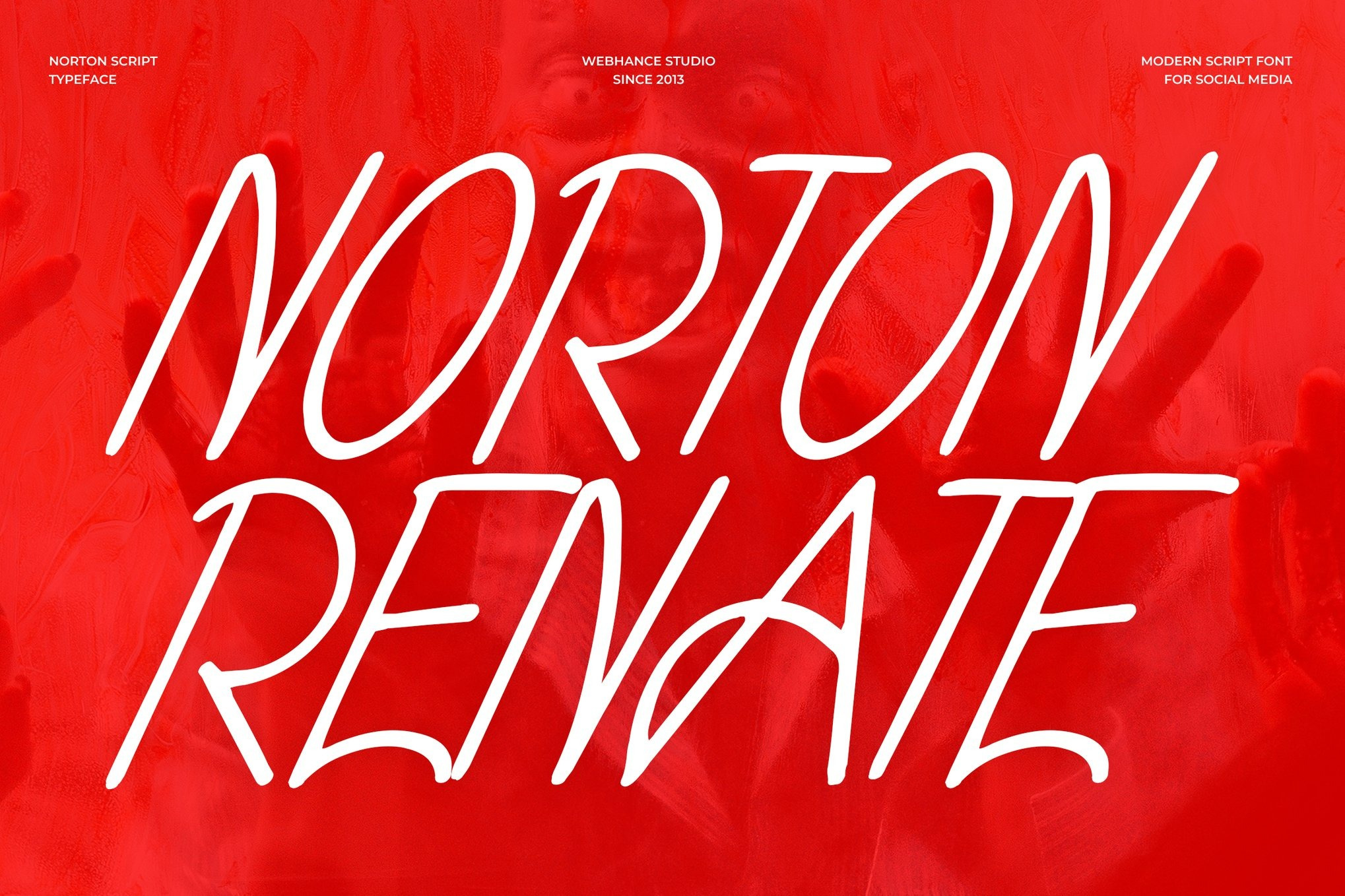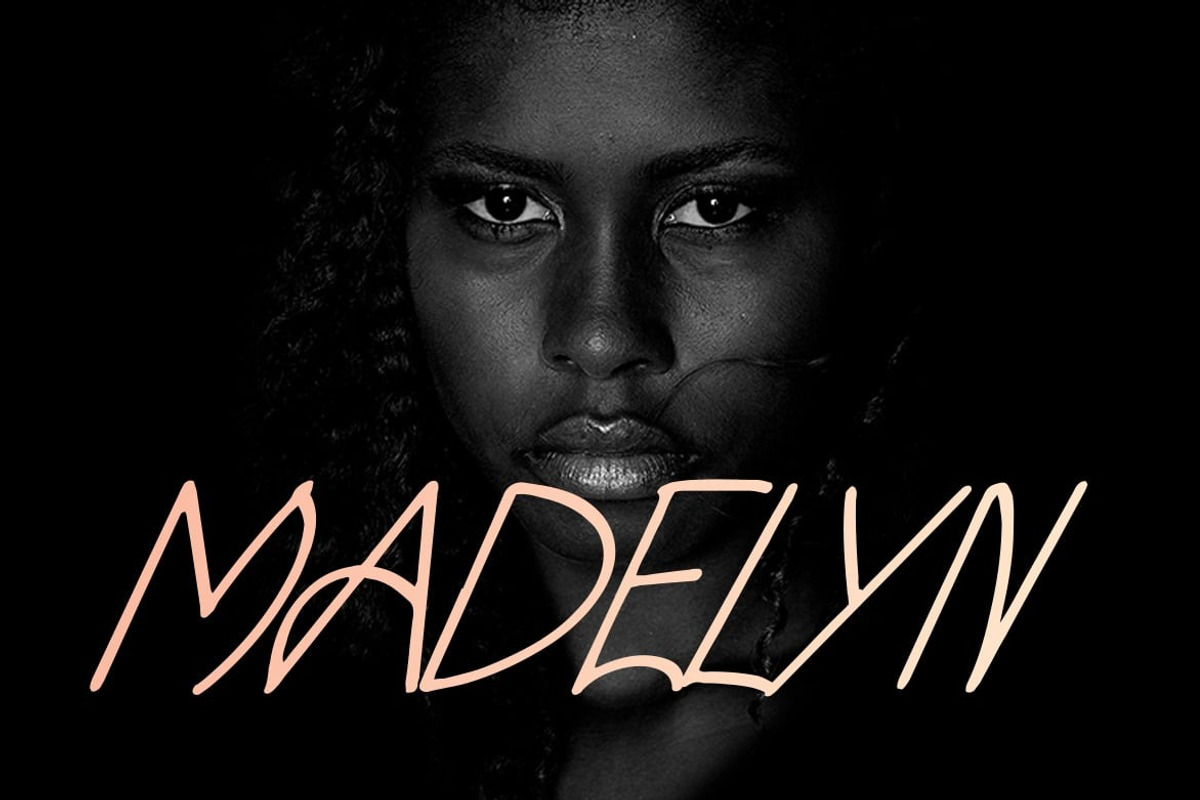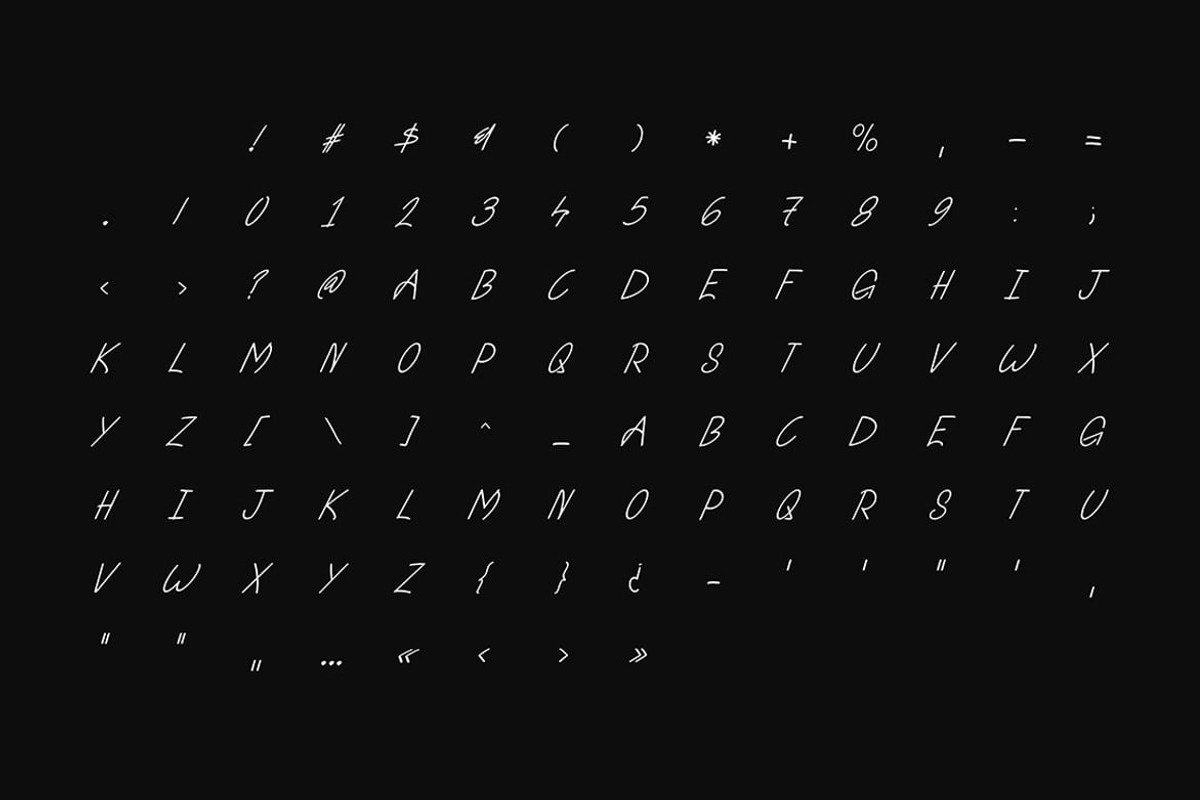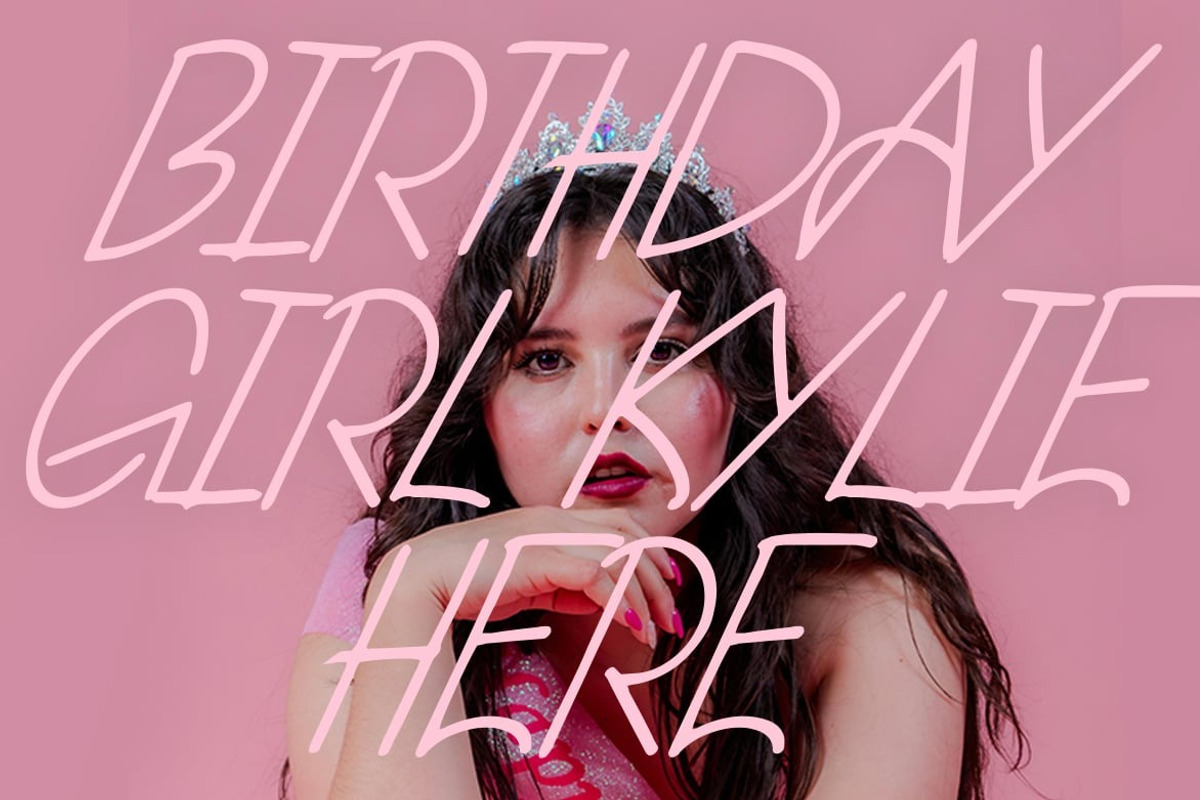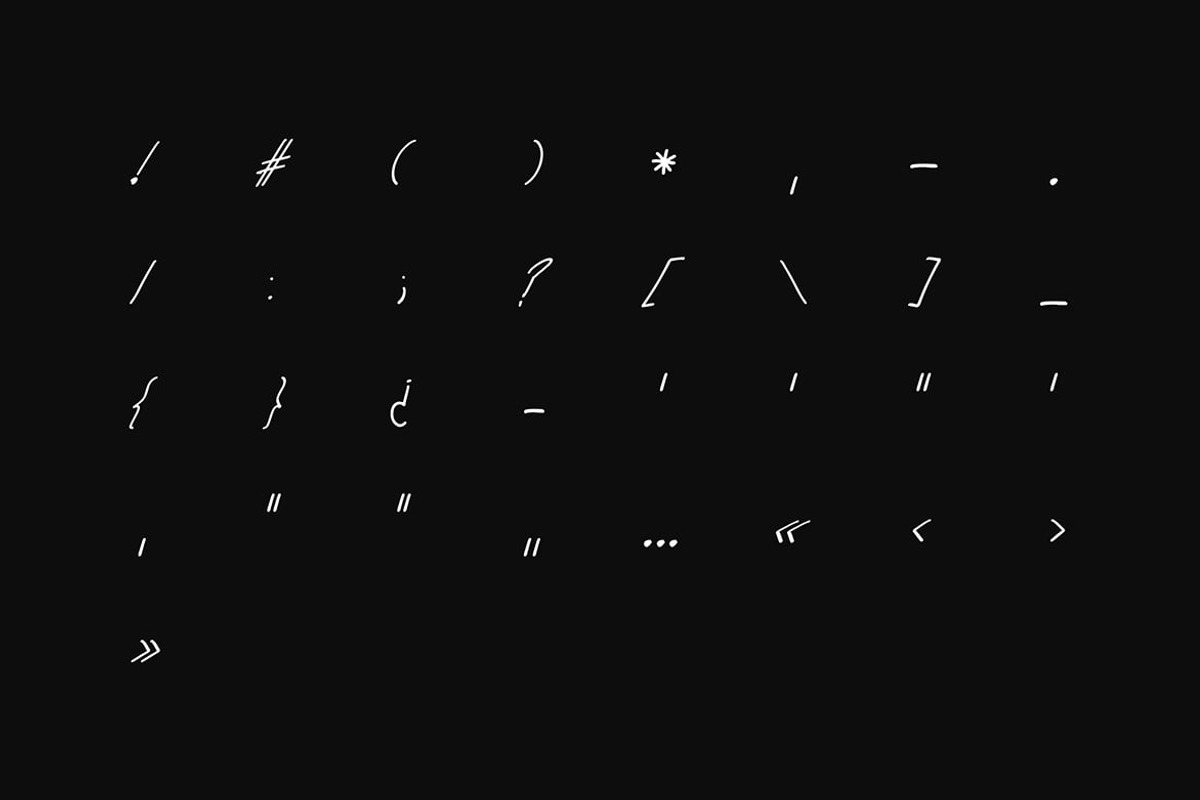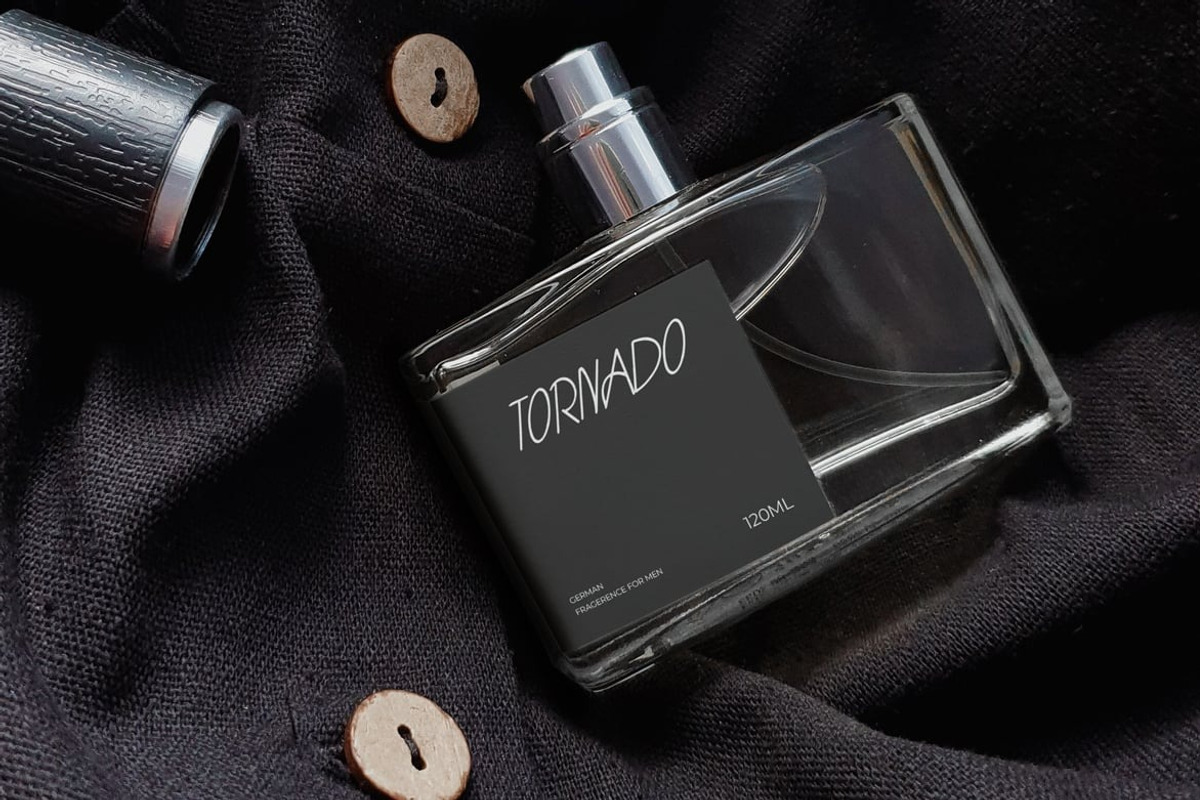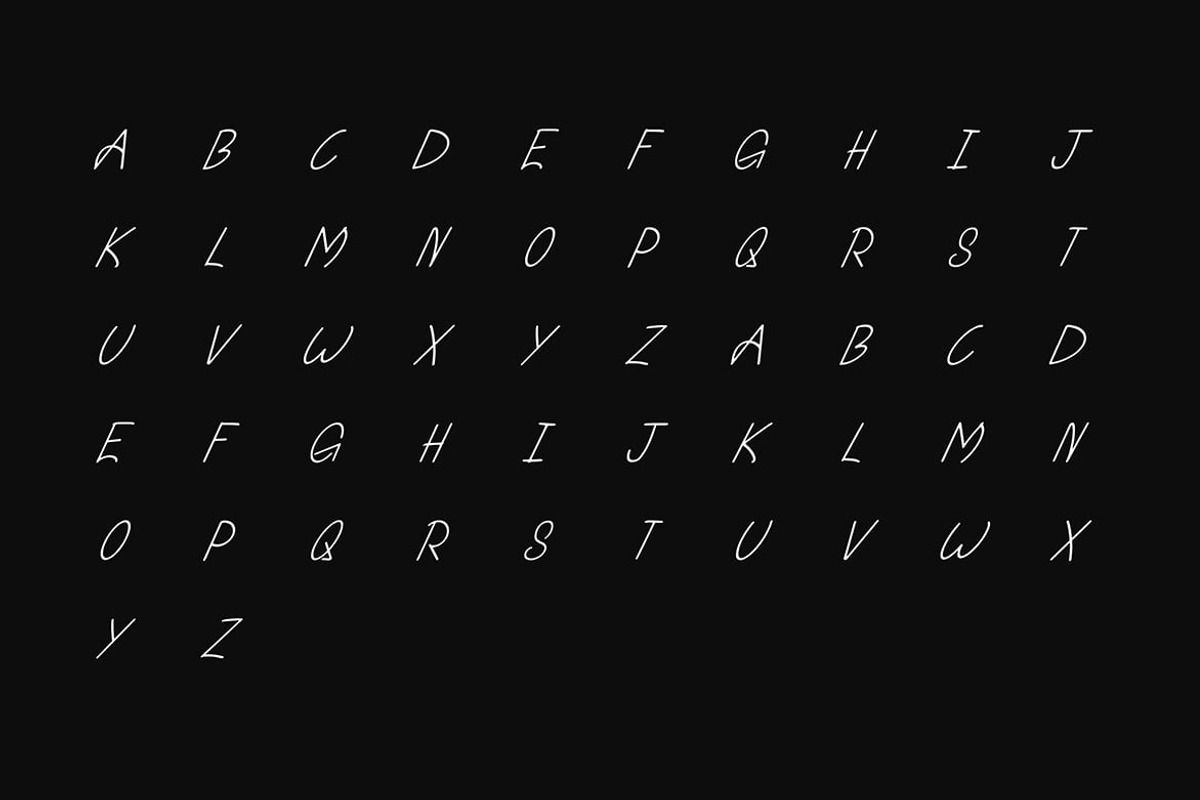
Norton Renate - Handwritten Font
a modern handwritten typeface, adds a touch of elegance to your design projects. Its natural and organic feel, coupled with its unique character, makes it an ideal choice for various design tasks, such as logos, branding, invitations, and more. Its modern, handwritten style exudes a distinctive charm that captivates and leaves a lasting impression.